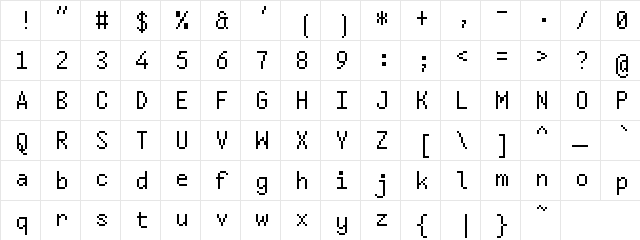
Bodge Regular
Design Context for Bodge Typeface
Bodge takes a measured approach to typography — its balanced proportions and neutral character make it a reliable workhorse for both digital and print work.
Pro Tip: Use Bodge in both headline and body roles to test its range before committing to a single application.